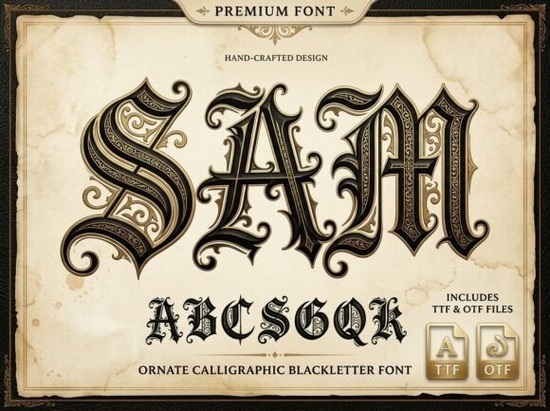
If you're looking for a blackletter font that feels both historically grounded and visually striking without leaning too far into cartoonish or overly distressed territory Sam Font is worth your attention. It’s not just another gothic typeface; it’s a carefully drawn, ornate calligraphic blackletter designed with real craftsmanship in mind. You’ll notice the precision in its razor-sharp serifs, the rhythm in its dramatic swirls, and the subtle internal filigree that adds depth without clutter. Whether you’re designing a fantasy book cover, branding a small-batch whiskey label, or creating tattoo flash for a local shop, Sam carries weight not just visually, but contextually.
When does Sam Font work best?
Sam shines where presence matters more than readability at small sizes. Think: large-format prints, signage, logo lockups, or hero text on websites and social posts. It’s especially effective for projects rooted in tradition or intensity like heavy metal band merch, artisanal spirits packaging, or medieval-inspired wedding stationery. Because of its high contrast and decorative detail, it’s less suited for body text or long paragraphs. But as a display font? It holds its own.
Designers often ask: “Is this font versatile enough for commercial use?” Yes it includes full Latin character sets, numerals, punctuation, and basic multilingual support (including accented characters used in French, Spanish, and German). You’ll also get OpenType features like stylistic alternates and ligatures, which let you fine-tune how letters connect especially helpful when crafting custom wordmarks or monograms.
How does Sam compare to other blackletter fonts?
Unlike many digital blackletters that rely on heavy outlines or exaggerated shadows to mimic texture, Sam was hand-crafted with intentional stroke variation and organic flow. That makes it feel more authentic next to historical references or alongside contemporary design elements like minimalist layouts or modern sans-serif pairings. For example, pairing Sam with a clean geometric sans (like Montserrat font) creates a strong visual contrast that reads as intentional, not chaotic.
Who’s actually using Sam Font right now?
We’ve seen crafters use it for hand-lettered-style iron-on transfers on tote bags and hoodies. Print-on-demand sellers apply it to limited-run vinyl stickers aimed at fantasy readers and tabletop gamers. Small distilleries choose it for batch-number labels and tasting room signage its regal tone supports premium positioning without needing extra embellishment. And tattoo artists adapt its letterforms into flash sheets, appreciating how clearly the internal details translate at larger scales.
One practical note: because of its ornate nature, Sam benefits from generous letter spacing (tracking) and careful kerning especially around tight combinations like “To”, “Th”, or “Wa”. Most design apps handle this automatically with OpenType-aware layout engines (like Adobe Illustrator or Affinity Designer), but if you’re working in Canva or Cricut Design Space, you may want to manually adjust spacing for best results.
If you’re new to blackletter fonts, consider starting with one strong option like Sam before building a larger collection. It’s easier to develop a consistent visual language when your toolkit isn’t overwhelming. And if you do want to explore further, the Sam Font page includes user reviews, real project examples, and compatibility notes helpful for checking things like Mac vs. Windows rendering or Cricut firmware support.
- ✅ Works well for logos, posters, apparel, and packaging